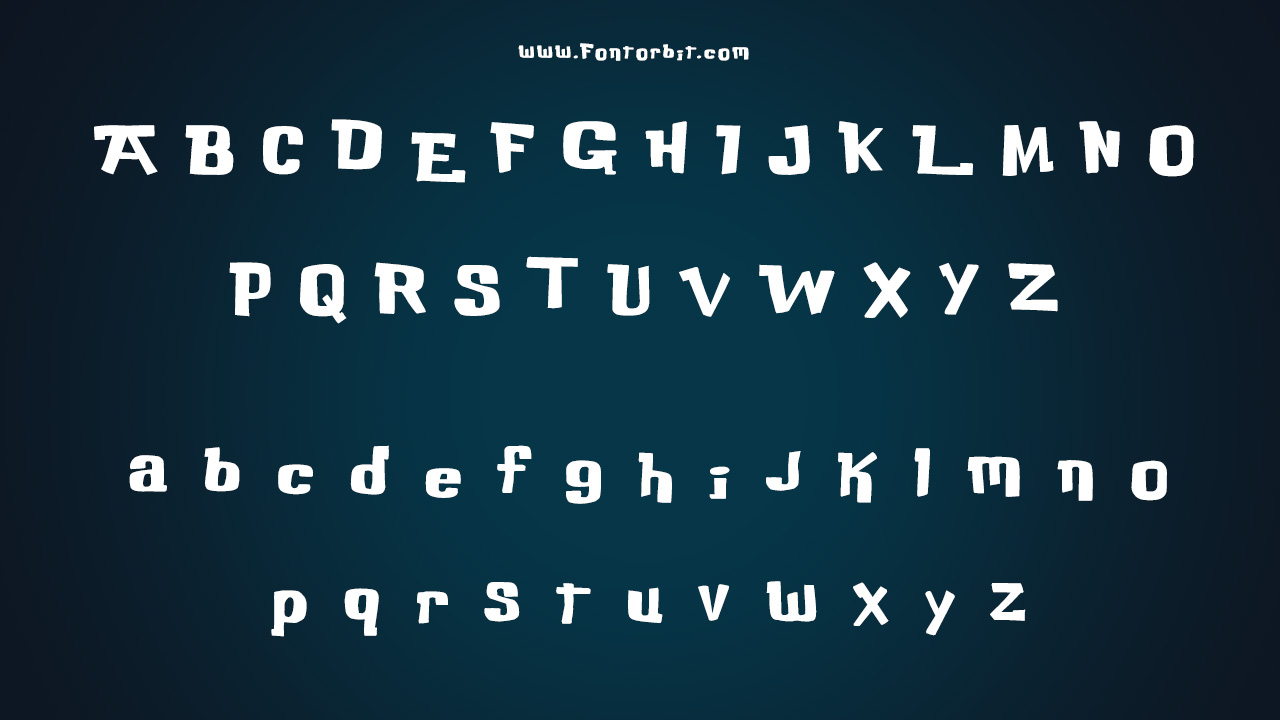
Lilo and Stitch Font is a playful and whimsical typeface inspired by Disney’s Lilo & Stitch movie title font. The actual font is Buka Bird, designed by Steve Ferrera. This font captures the charming essence of the film’s title logo, making it perfect for a variety of creative projects.
Type Of The Lilo And Stitch Font (Font Family)
Lilo and Stitch Font fall into the category of decorative typefaces characterized by their fun, cartoonish style. This font evokes the playful spirit of the film, featuring rounded edges and a lively aesthetic. Specifically, it includes:
Buka Bird Font
Lilo and Stitch Font is ideal for adding a whimsical touch to various design projects. Its fun and casual design makes it well-suited for:
- Children’s party invitations
- Themed merchandise
- Art prints
- Social media graphics
- Scrapbooking
- Crafts
- Personal projects
- Fan art
The Lilo And Stitch Font Found In Use
Lilo and Stitch Font is extensively used in creative projects that embrace a playful and lighthearted theme. It works exceptionally well in designs aimed at children or those wanting to evoke nostalgia, making it a great choice for invitations, decor, and branding in casual contexts.
Lilo and Stitch Font is a delightful decorative typeface perfect for a wide range of creative uses. It’s ideal for making children’s projects stand out and adding a whimsical touch to any design. Whether for personal use or themed events, Lilo and Stitch Font brings a charming edge to your work.
1.What Are The Characteristics Of Lilo And Stitch Font?
Lilo and Stitch Font features a playful, cartoonish style with rounded edges, capturing the fun spirit of the film.
2.What Are The Considerations For Using Lilo And Stitch Font In Branding?
Ensure the font aligns with a fun and casual aesthetic, suitable for children-focused brands or playful themes.
3.What Are The Limitations Of Using Lilo And Stitch Font In Design?
Its playful design may not be suitable for more formal or serious contexts, limiting its use in corporate branding.
4.What Are The Differences Between Lilo And Stitch Font And Other Display Fonts?
Lilo and Stitch Font features a whimsical, child-friendly design, while other display fonts may have varied stylistic elements, such as more modern or elegant characteristics.
5.What Do You Want From A Lilo And Stitch Font?
Users typically seek a fun, nostalgic typeface that provides a playful look for children’s projects and themed designs.
6.How To Create A Distressed Effect With Lilo And Stitch Font?
If desired, use graphic design software to apply a distressed texture or effect to give the font a vintage or worn appearance.
8.What Styles Are Popular In Lilo And Stitch Fonts?
Playful, cartoonish, and whimsical styles are popular, offering a fun and cheerful look suitable for a wide range of creative applications.